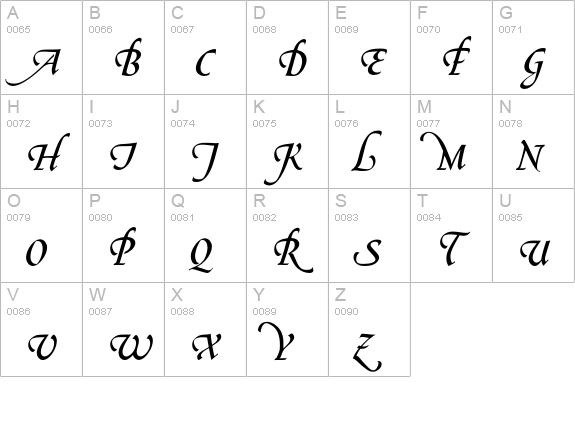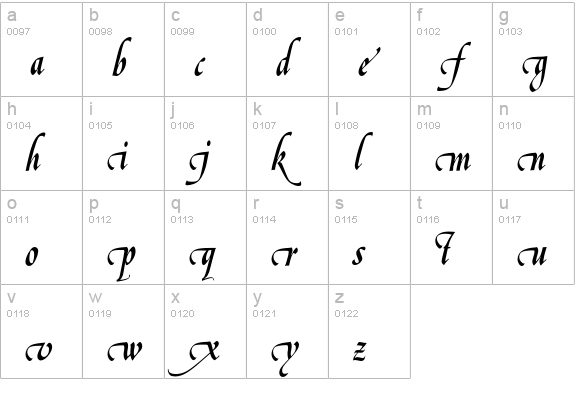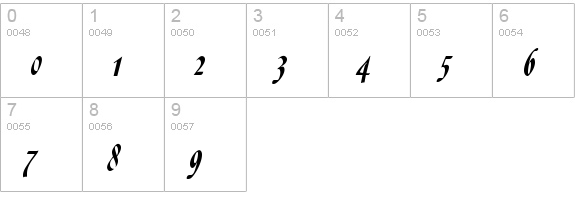
LeGriffeEF-AlternateOne Font Details
Introducing LeGriffeEF-AlternateOne, a captivating and versatile font that will add a touch of elegance to your designs. This font exudes a sense of sophistication and refinement, making it perfect for any project that requires a touch of class. LeGriffeEF-AlternateOne offers a unique and stylish alternative to traditional fonts, with its beautifully crafted letterforms and intricate details. Its flowing curves and sharp edges create a harmonious balance that is both visually appealing and readable. One of the most remarkable features of LeGriffeEF-AlternateOne is that it is absolutely free. That's right, this extraordinary font is available to download at FontsMarket.com without any cost. You can now add a touch of luxury to your designs without breaking the bank. Whether you're working on a branding project, a logo design, a wedding invitation, or even a magazine layout, LeGriffeEF-AlternateOne will effortlessly elevate your design to new heights. Its versatility allows it to adapt to various styles and themes, making it suitable for both modern and classic designs. The attention to detail in LeGriffeEF-AlternateOne is truly remarkable. Each letter has been meticulously designed to ensure a seamless and visually pleasing result. The uppercase letters exude power and strength, while the lowercase letters offer a more delicate and refined touch. With LeGriffeEF-AlternateOne, your designs will stand out from the crowd and leave a lasting impression. So why wait? Download this remarkable font for free at FontsMarket.com and unlock a world of endless design possibilities. Give your projects the touch of elegance they deserve with LeGriffeEF-AlternateOne.